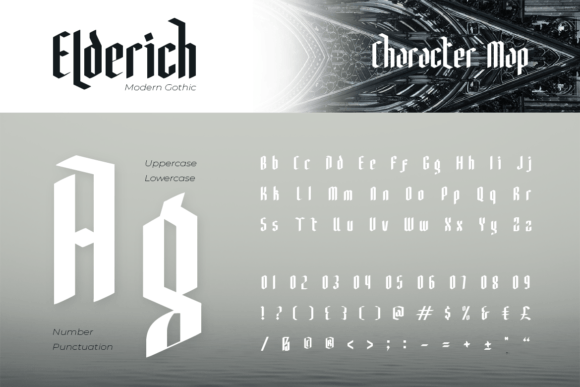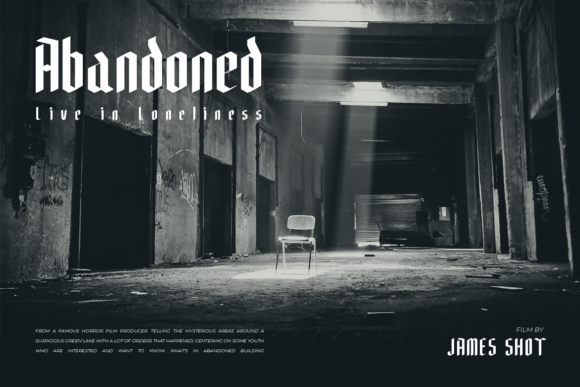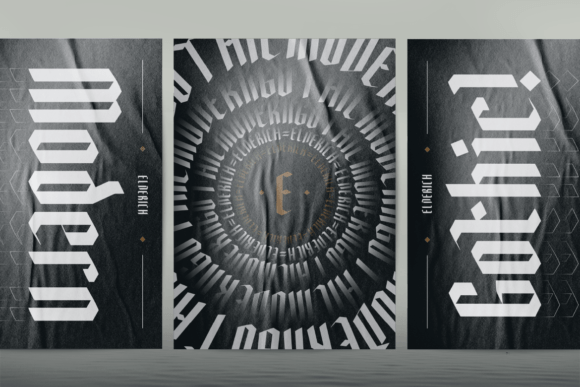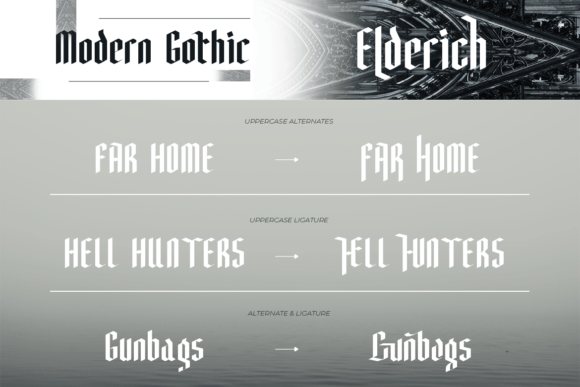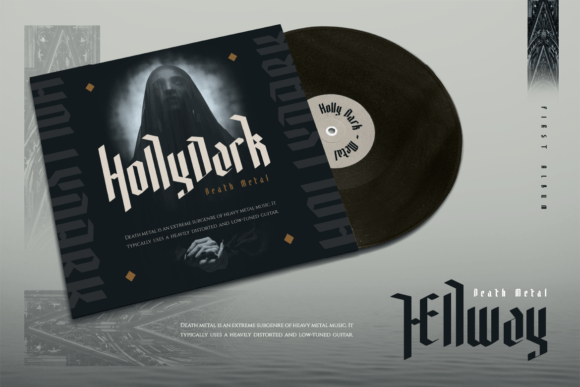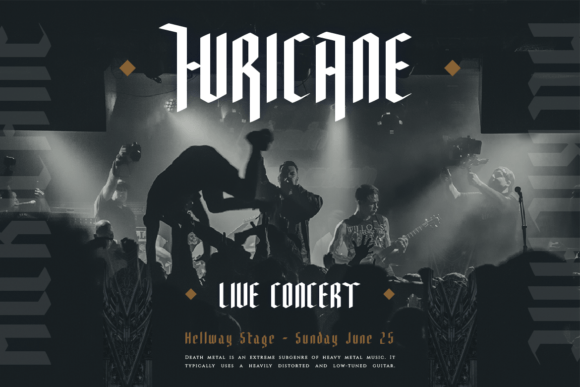
Elderich Font: A Modern Gothic Typeface for Bold Designs
In the world of typography, fonts play a crucial role in conveying the tone and personality of a design. For designers and crafters looking for a unique and striking typeface, Elderich Font is an excellent choice. This modern gothic font features strong and geometric shapes with a fraktur style inspired by the blackletter concept, making it perfect for a variety of design projects.
What is Elderich Font?
Elderich Font is a modern gothic typeface that combines the elegance of traditional blackletter fonts with a contemporary twist. Its strong and geometric shapes give it a bold and striking appearance, making it ideal for designs that require a sense of drama and sophistication. The font’s fraktur style is inspired by the blackletter concept, which originated in the Middle Ages and is characterized by intricate and ornate letterforms.
Key Features of Elderich Font
Elderich Font has several key features that make it a versatile and practical choice for designers. Some of its notable features include:
- Strong and geometric shapes: The font’s bold and geometric shapes give it a modern and edgy appearance, making it perfect for designs that require a sense of drama and sophistication.
- Fraktur style inspired by blackletter concept: The font’s fraktur style is inspired by the traditional blackletter concept, which adds a touch of elegance and sophistication to the font.
- Multipurpose: Elderich Font is suitable for a variety of design projects, including logo design, social media, movie titles, book titles, short text, and even long text.
- Compatible with script, sans, and serif fonts: The font is perfect for use as a secondary text font, and its unique style pairs well with script, sans, and serif fonts.
Use Cases for Elderich Font
Elderich Font is a versatile typeface that can be used in a variety of design projects. Some of its use cases include:
- Logo design: The font’s bold and striking appearance makes it perfect for logo design, where a strong and memorable visual identity is crucial.
- Social media: Elderich Font is suitable for social media designs, such as Facebook posts, Instagram captions, and Twitter headers, where a bold and eye-catching font is essential.
- Movie titles: The font’s dramatic and sophisticated appearance makes it perfect for movie titles, where a sense of grandeur and elegance is required.
- Book titles: Elderich Font is also suitable for book titles, where a strong and memorable font is necessary to capture the reader’s attention.
- Short text and long text: The font is suitable for both short text and long text, making it a versatile choice for designers.
Why Choose Elderich Font?
There are several reasons why designers and crafters should choose Elderich Font for their design projects. Some of the benefits of using this font include:
- Unique and striking appearance: The font’s bold and geometric shapes give it a unique and striking appearance that sets it apart from other typefaces.
- Versatility: Elderich Font is a versatile typeface that can be used in a variety of design projects, from logo design to book titles.
- Elegance and sophistication: The font’s fraktur style inspired by the blackletter concept adds a touch of elegance and sophistication to the font, making it perfect for designs that require a sense of drama and refinement.
In conclusion, Elderich Font is a modern gothic typeface that offers a unique and striking appearance, versatility, and elegance. Its strong and geometric shapes, fraktur style inspired by the blackletter concept, and compatibility with script, sans, and serif fonts make it a practical choice for designers and crafters. Whether you’re working on a logo design, social media project, movie title, book title, or any other design project, Elderich Font is an excellent choice.